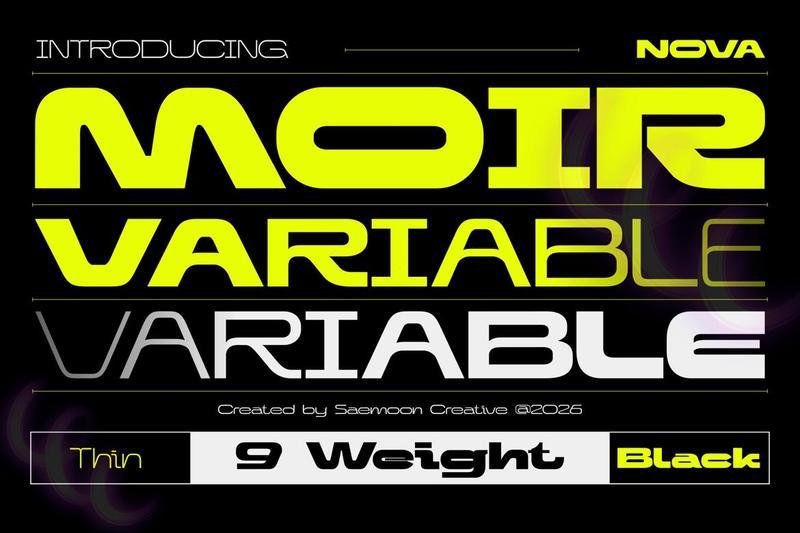
**Nova Moir Variable**
Nova Moir Variable is a futuristic display typeface designed to deliver maximum flexibility and creative freedom. Built with a variable weight axis, it lets you smoothly adjust from thin to black, making it easy to create anything from sleek minimalist layouts to bold, high-impact headlines.
Inspired by modern technology, motorsport, and sci-fi aesthetics, Nova Moir features strong geometric letterforms, clean curves, and distinctive futuristic details that give every design a dynamic and cutting-edge appearance. Its variable functionality allows designers to fine-tune the perfect weight for branding, logos, posters, gaming, esports, packaging, UI design, and digital media.
Whether you’re creating a lightweight, elegant composition or a powerful display title, Nova Moir Variable adapts effortlessly while maintaining its unique futuristic identity.
**Features**
* Variable Font (ThinBlack Weight Axis)
* Uppercase & Lowercase
* Numbers & Punctuation
* Ligatures
* Multilingual Support
Nova Moir Variable gives you the freedom to explore limitless typography while delivering a bold futuristic character for every creative project.